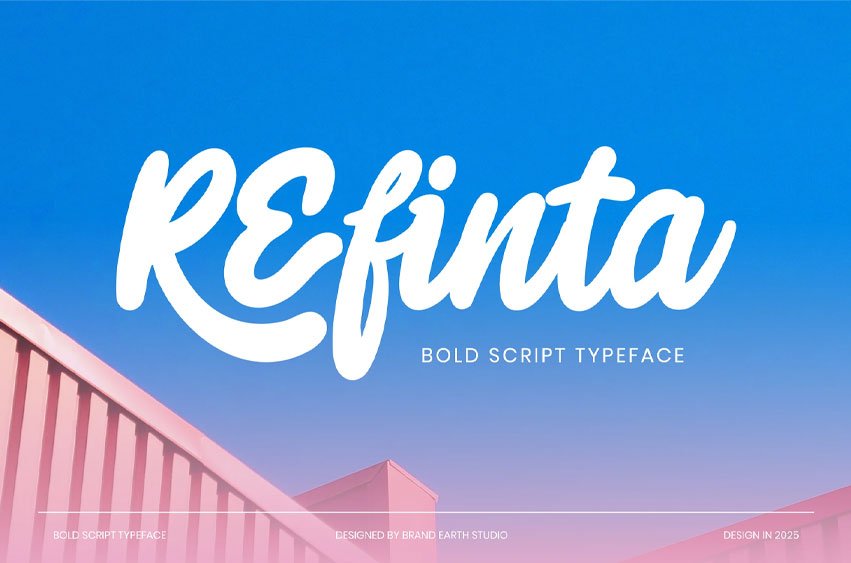
Refinta Script Font is a bold script font that delivers expressive, handwritten charm with a modern punch. Perfect for headlines, branding, and logo design, this typeface features thick curves, smooth flow, and a brush-style aesthetic that resembles marker pen writing.
Its stylish balance between casual flair and bold structure makes it ideal for creative projects that demand personality, impact, and legibility from social media posts to packaging and sports branding.
Suitable For: logo design, product branding, sports graphics, quote typography, advertising, packaging, bold headlines, posters, stickers, lifestyle branding, social media posts, signage, creative titles, brush script, marketing visuals, handmade designs, bold display, energetic content.